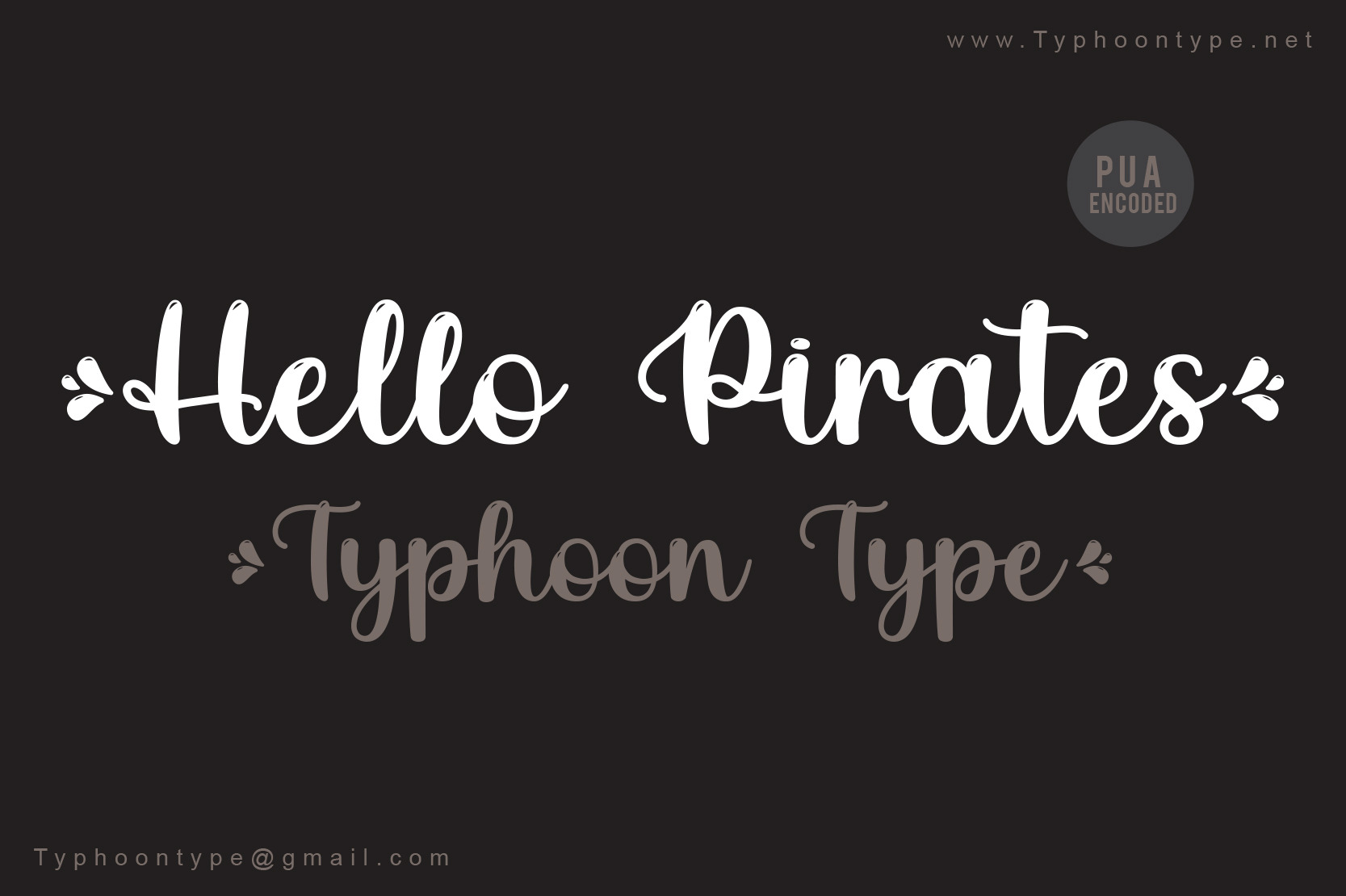
Hello Pirates font
Hello Pirates This Font perfect for logos, name tag, advertising, product packaging, clothing, social media & greeting cards.
Type ( before word to get beginning splash and Type ) after word to get the ending splash. Example : (Hello Pirates)